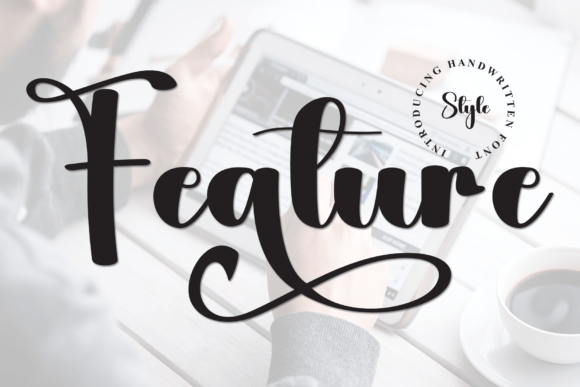
Introducing Feature Font: Elevate Your Designs with Artistic Flair and Contemporary Elegance
In the world of typography, fonts play a crucial role in conveying the tone and personality of a brand or design. With the vast array of fonts available, it can be challenging to find one that stands out from the rest. However, if you’re looking for a font that exudes artistic flair and contemporary elegance, look no further than Feature Font. This stylish script font is designed to capture the essence of hand-painted calligraphy with a modern twist, making it perfect for a wide range of design applications.
The Characteristics of Feature Font
Feature Font boasts fluid brush strokes, dynamic curves, and expressive letterforms that give it a unique and artistic feel. The font’s design is inspired by traditional hand-painted calligraphy, but with a modern twist that makes it perfect for contemporary designs. The fluid brush strokes and dynamic curves give the font a natural flow, making it easy to read and visually appealing.
One of the standout features of Feature Font is its expressive letterforms. Each letter is carefully crafted to convey a sense of elegance and sophistication, making it perfect for designs that require a touch of luxury. The font’s letterforms are also highly legible, making it suitable for use in a variety of design applications, from logos and invitations to packaging and social media graphics.
The Benefits of Using Feature Font
Feature Font offers a range of benefits that make it an ideal choice for designers. Here are just a few reasons why you should consider using Feature Font in your next design project:
- Visual Impact: Feature Font is designed to make a statement. Its unique blend of artistic flair and contemporary elegance makes it perfect for designs that require a touch of sophistication.
- Versatility: Feature Font is highly versatile and can be used in a wide range of design applications, from logos and invitations to packaging and social media graphics.
- Unique Style: Feature Font has a unique style that sets it apart from other fonts. Its expressive letterforms and fluid brush strokes make it perfect for designs that require a touch of elegance and sophistication.
Ideal Use Cases for Feature Font
Feature Font is a highly versatile font that can be used in a wide range of design applications. Here are some ideal use cases for Feature Font:
- Logos: Feature Font is perfect for logos that require a touch of elegance and sophistication. Its unique blend of artistic flair and contemporary elegance makes it perfect for brands that want to stand out from the competition.
- Invitations: Feature Font is ideal for invitations, such as wedding invitations, birthday invitations, and graduation invitations. Its elegant and sophisticated style makes it perfect for formal events.
- Packaging: Feature Font can be used in packaging design to add a touch of elegance and sophistication. Its unique style makes it perfect for brands that want to stand out on store shelves.
- Social Media Graphics: Feature Font is perfect for social media graphics, such as Facebook posts, Instagram posts, and Twitter posts. Its unique style makes it perfect for brands that want to add a touch of elegance and sophistication to their social media presence.
Tips for Using Feature Font Effectively
Here are some tips for using Feature Font effectively in your design projects:
- Use it sparingly: Feature Font is a bold font that can make a big impact. Use it sparingly to avoid overwhelming your design.
- Pair it with a sans-serif font: Feature Font pairs well with sans-serif fonts, such as Arial or Helvetica. Use a sans-serif font for body text and Feature Font for headings.
- Experiment with colors: Feature Font looks great in a range of colors. Experiment with different colors to find the one that works best for your design.
- Pay attention to kerning: Feature Font has a unique style that requires careful kerning. Pay attention to the spacing between letters to ensure that your design looks elegant and sophisticated.
Feature Font is a stylish script font that exudes artistic flair and contemporary elegance. Its unique blend of fluid brush strokes, dynamic curves, and expressive letterforms makes it perfect for designs that require a touch of sophistication. With its natural flow and vibrant character, Feature Font delivers both visual impact and versatility. Whether you’re designing a logo, invitation, packaging, or social media graphics, Feature Font is an ideal choice.